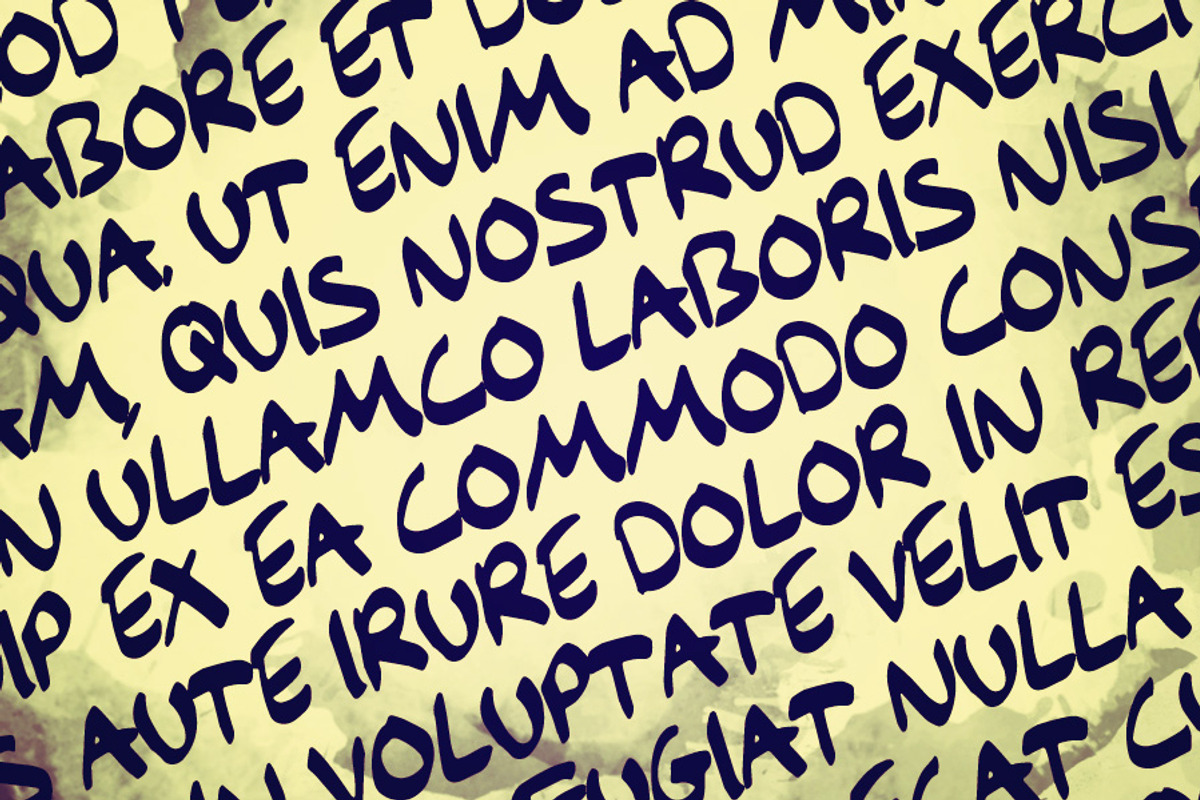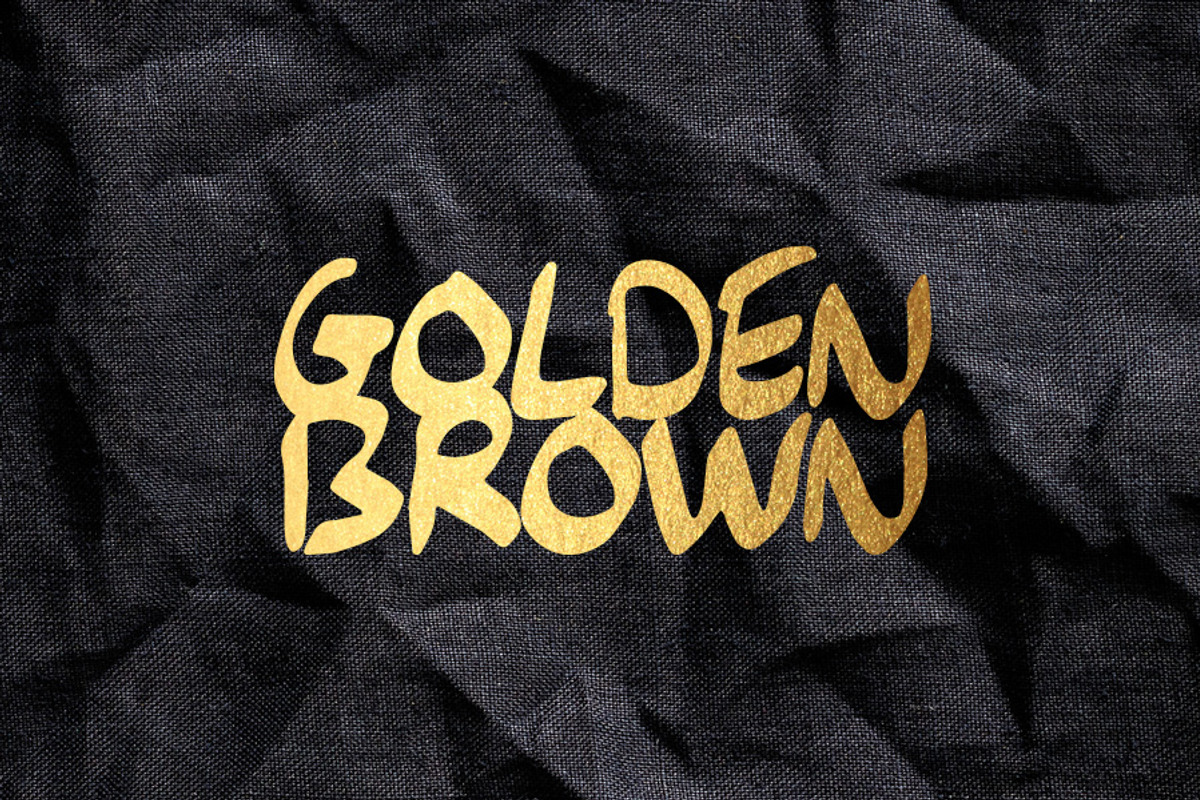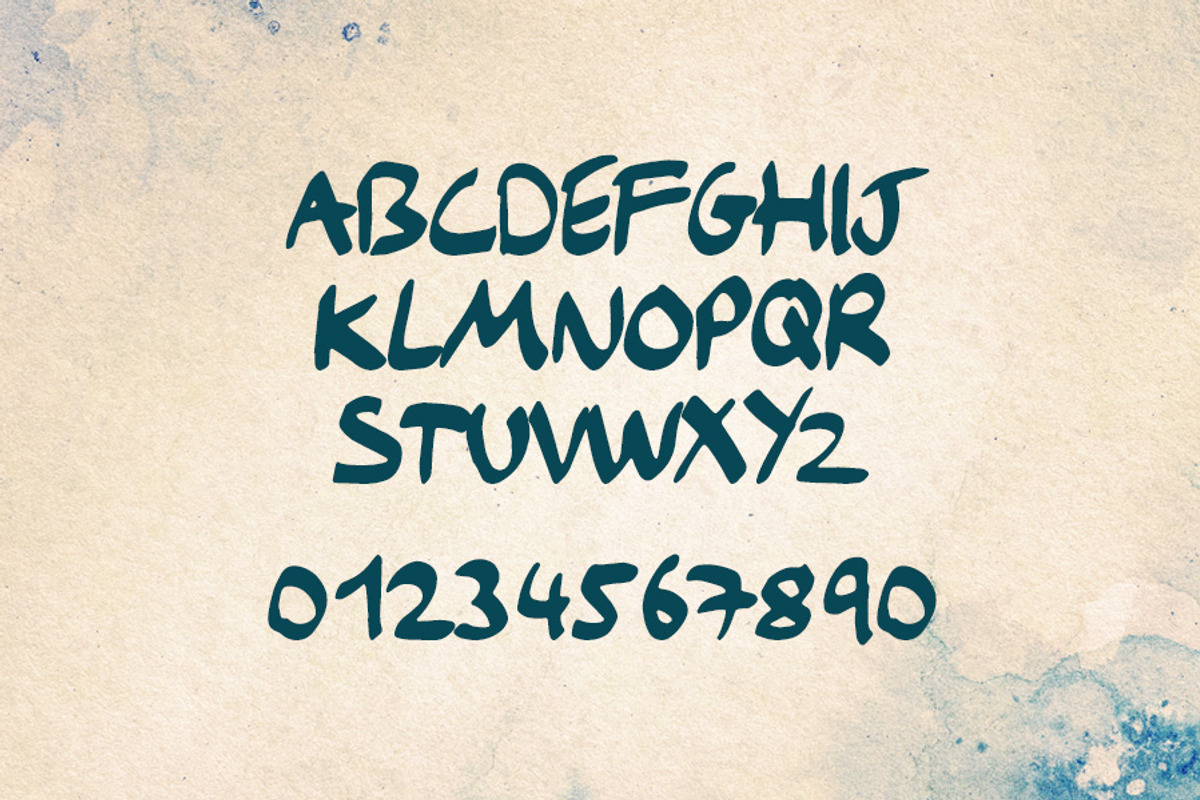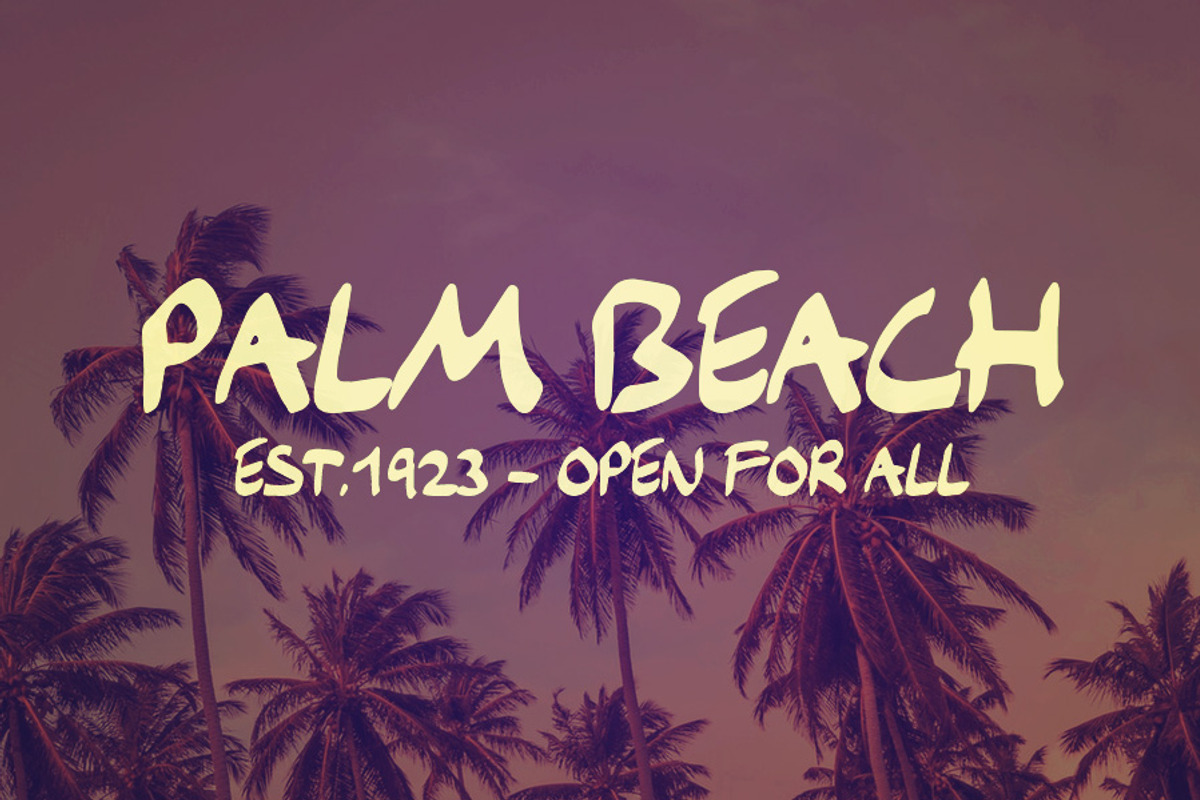
Bristle - Hand Drawn Font
Bristle - Hand Drawn Font by Tugcu Design Co. is a font selected for branding, posters, packaging, typography.
- Bristle includes uppercase letters, numbers and limited punctuation.
Why Bristle - Hand Drawn Font is worth a look
Bristle - Hand Drawn Font by Tugcu Design Co. fits naturally into Branding, posters, packaging, typography.